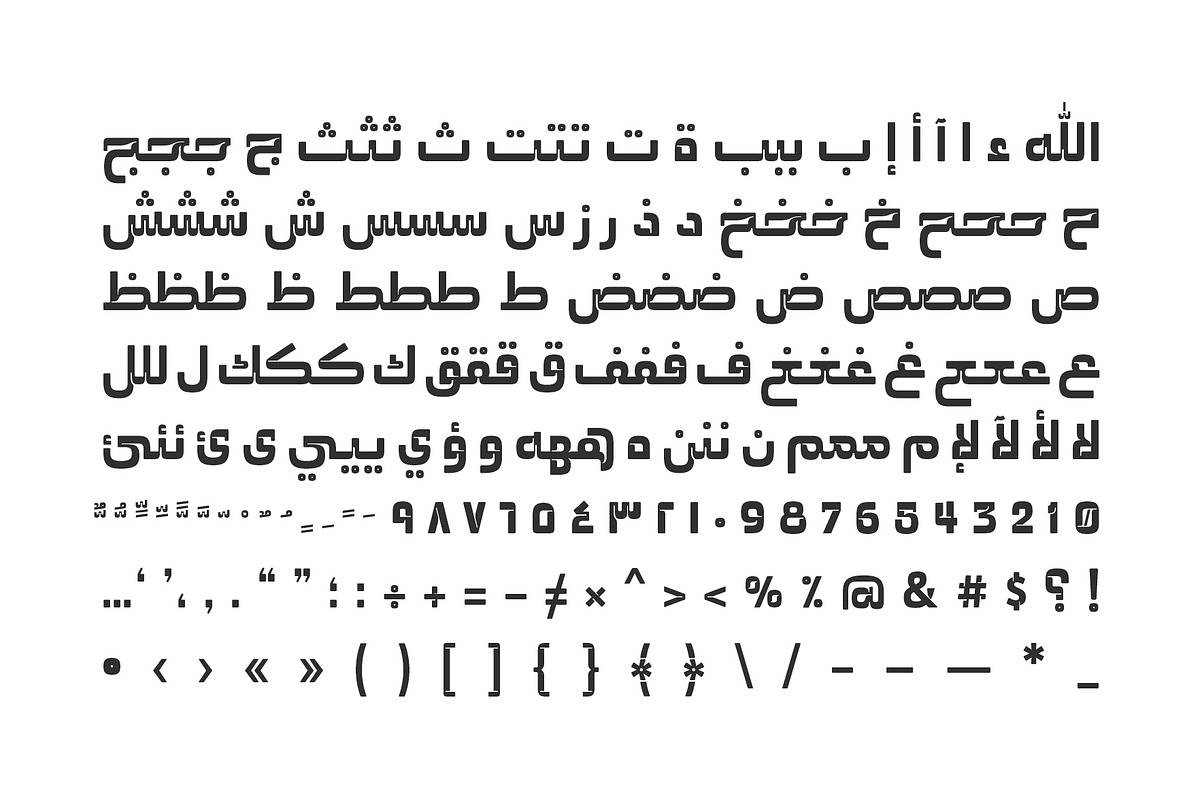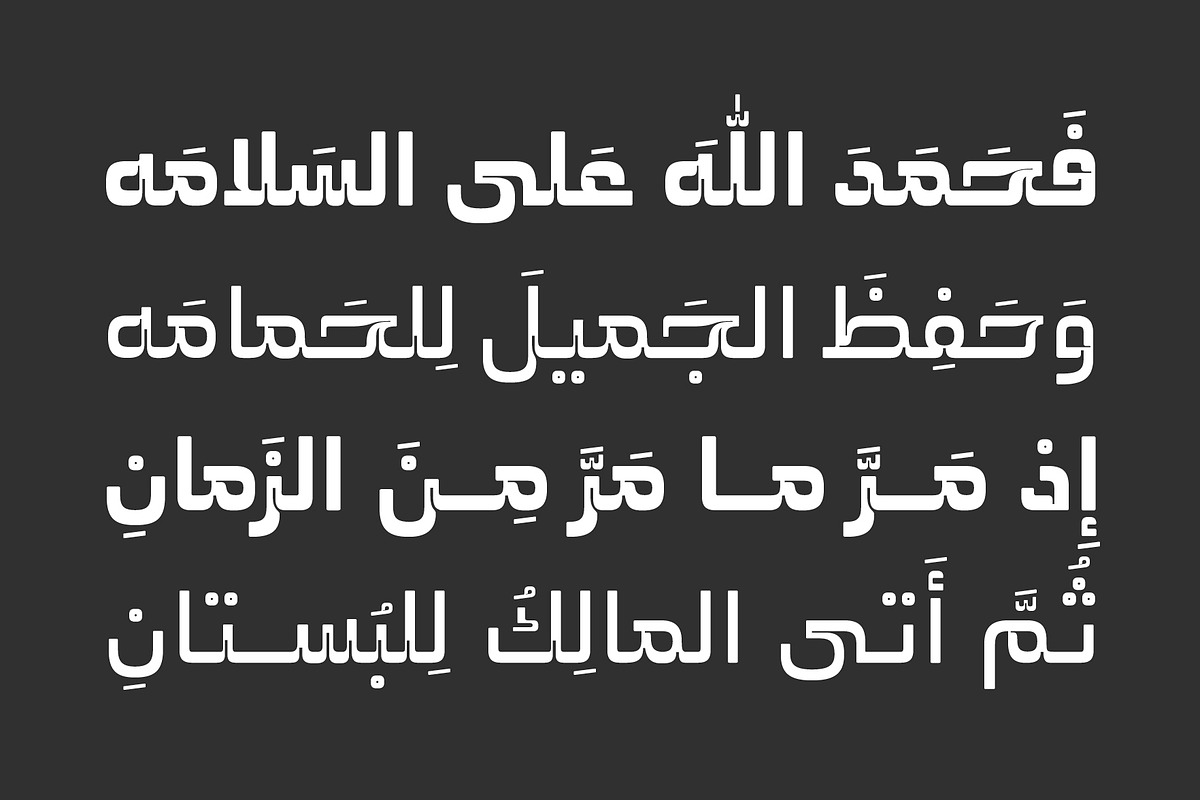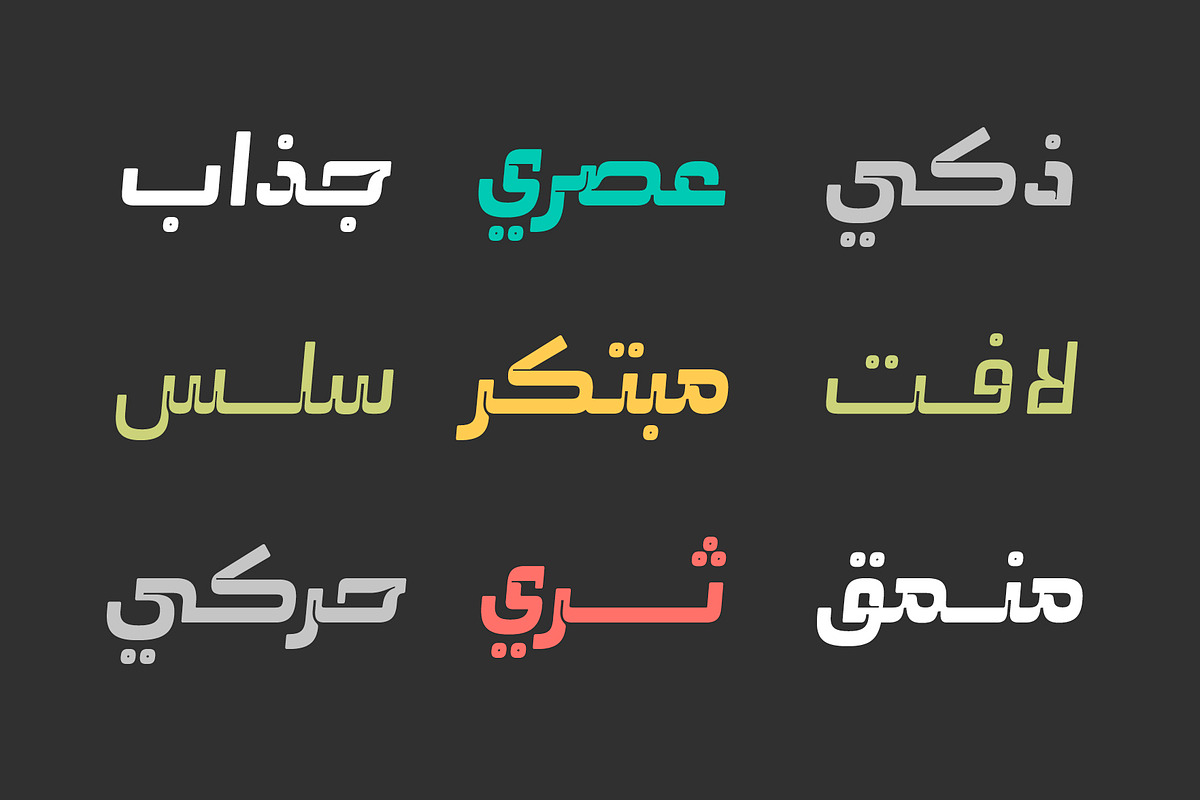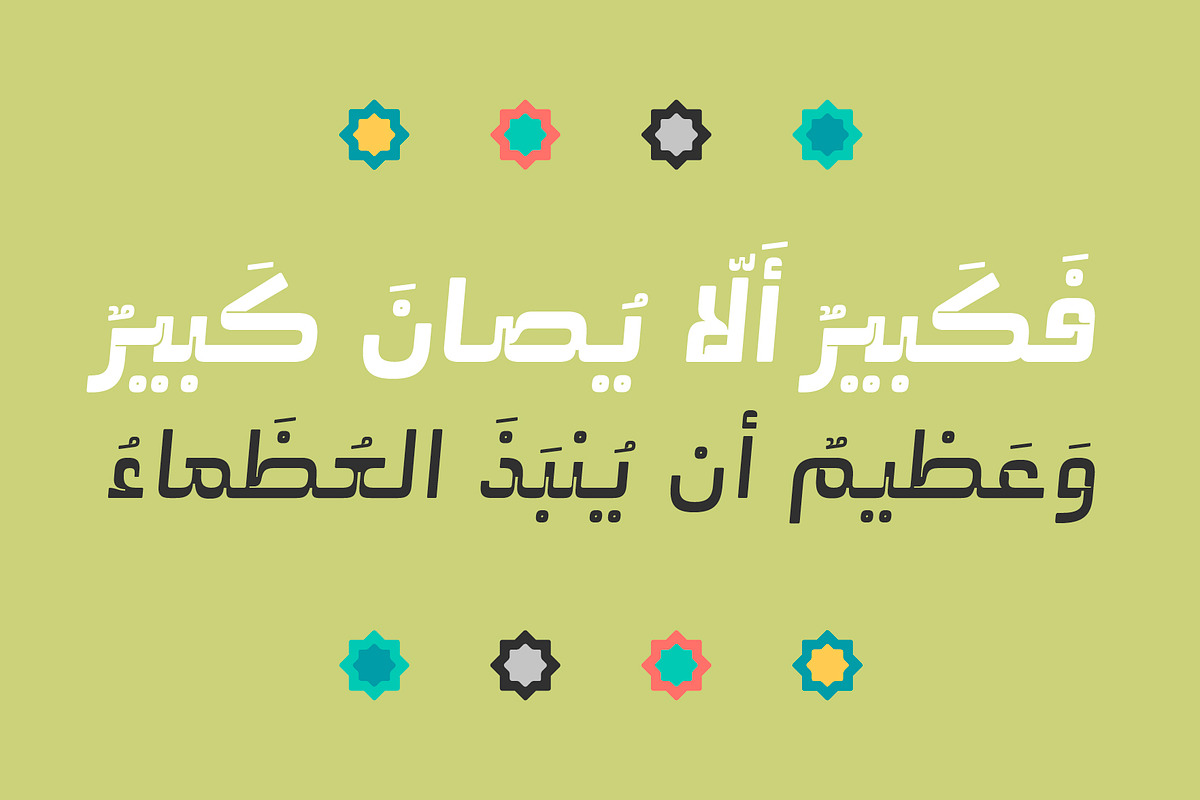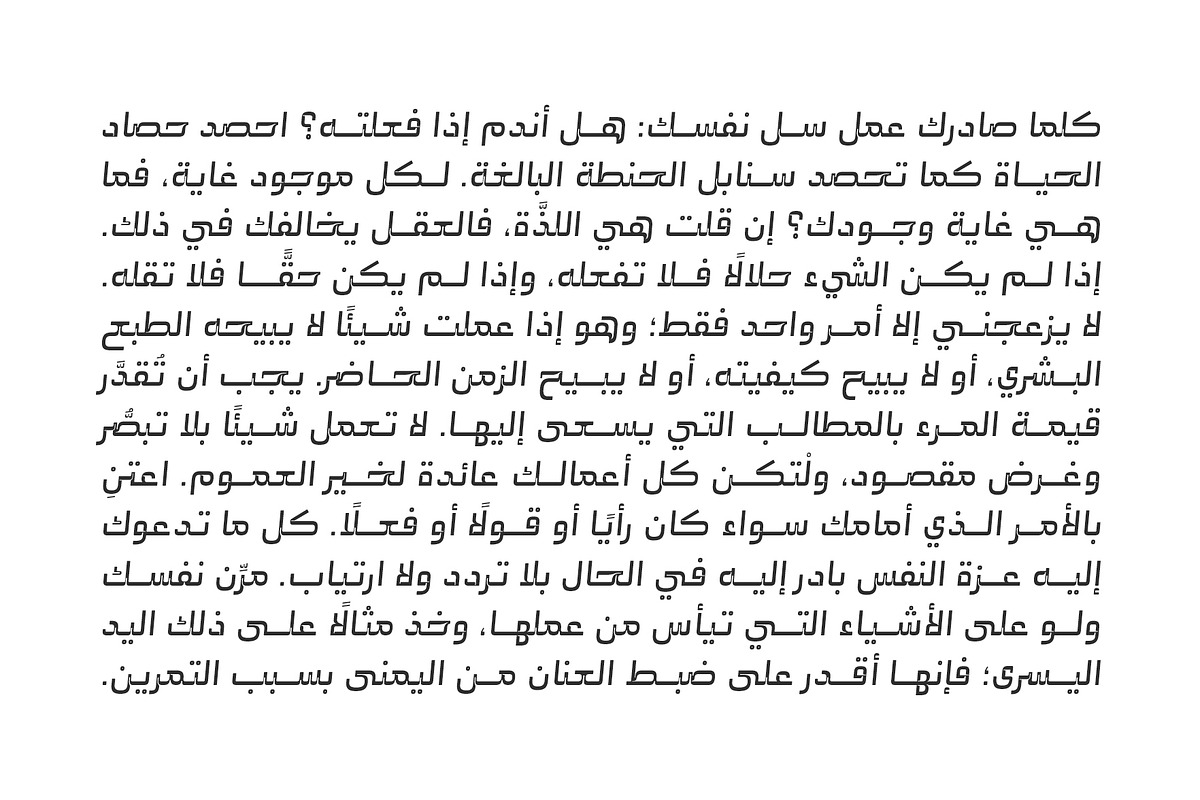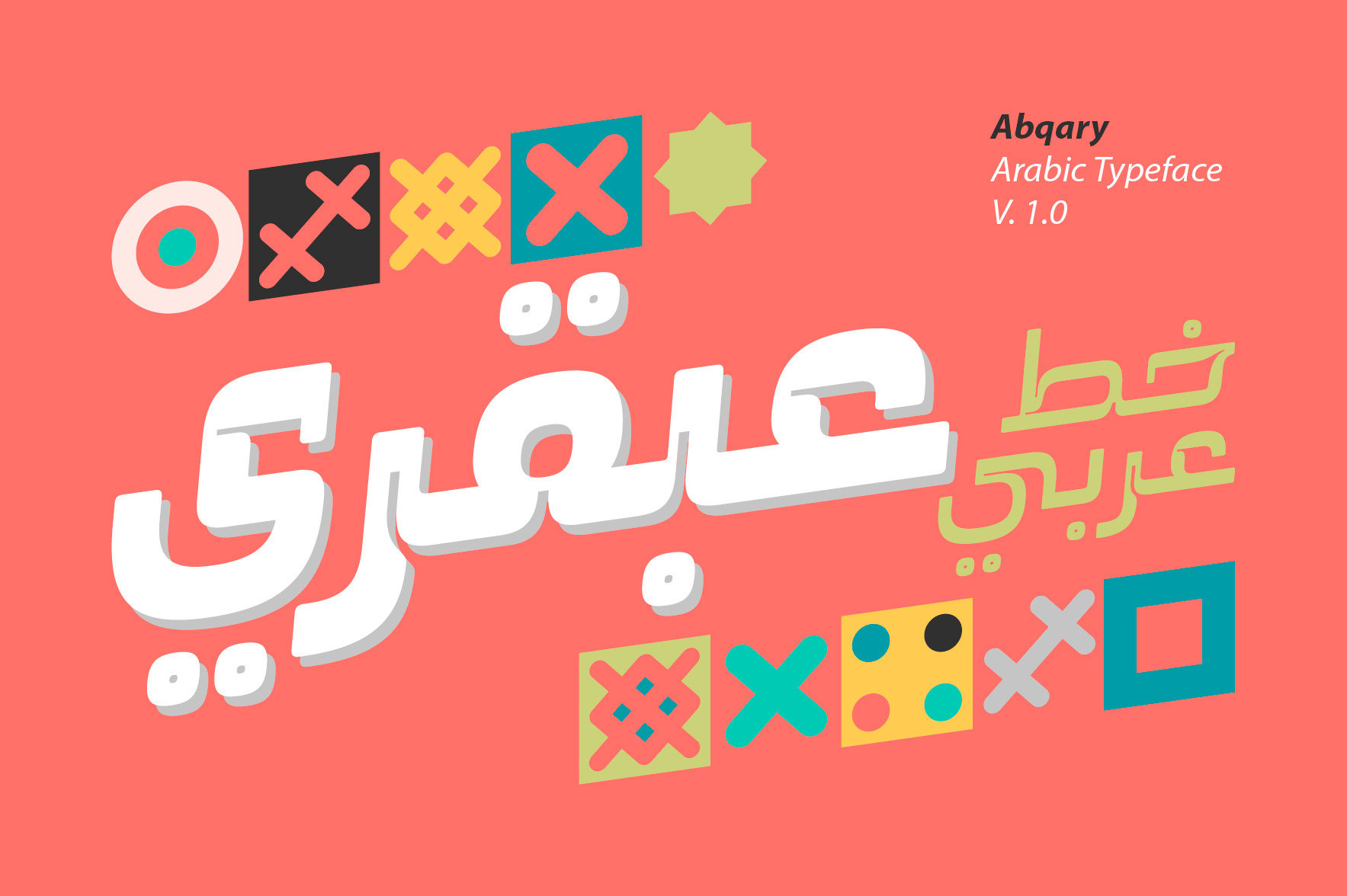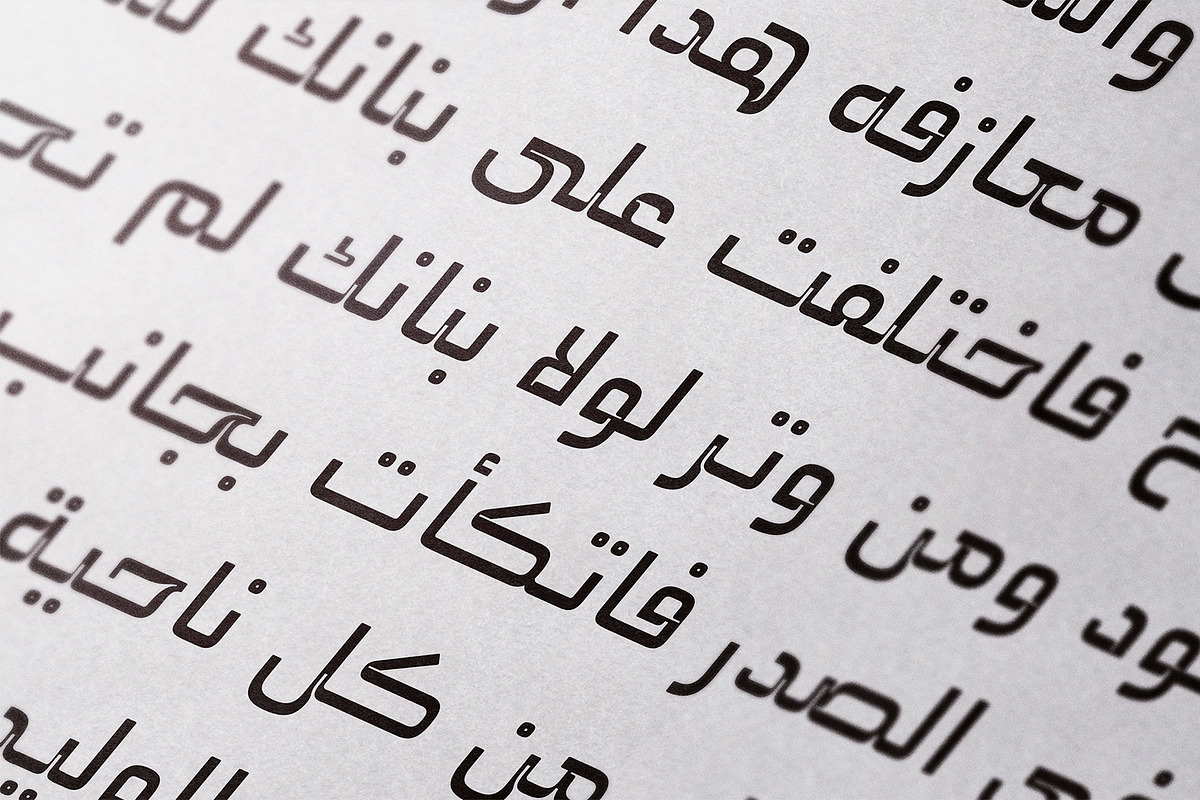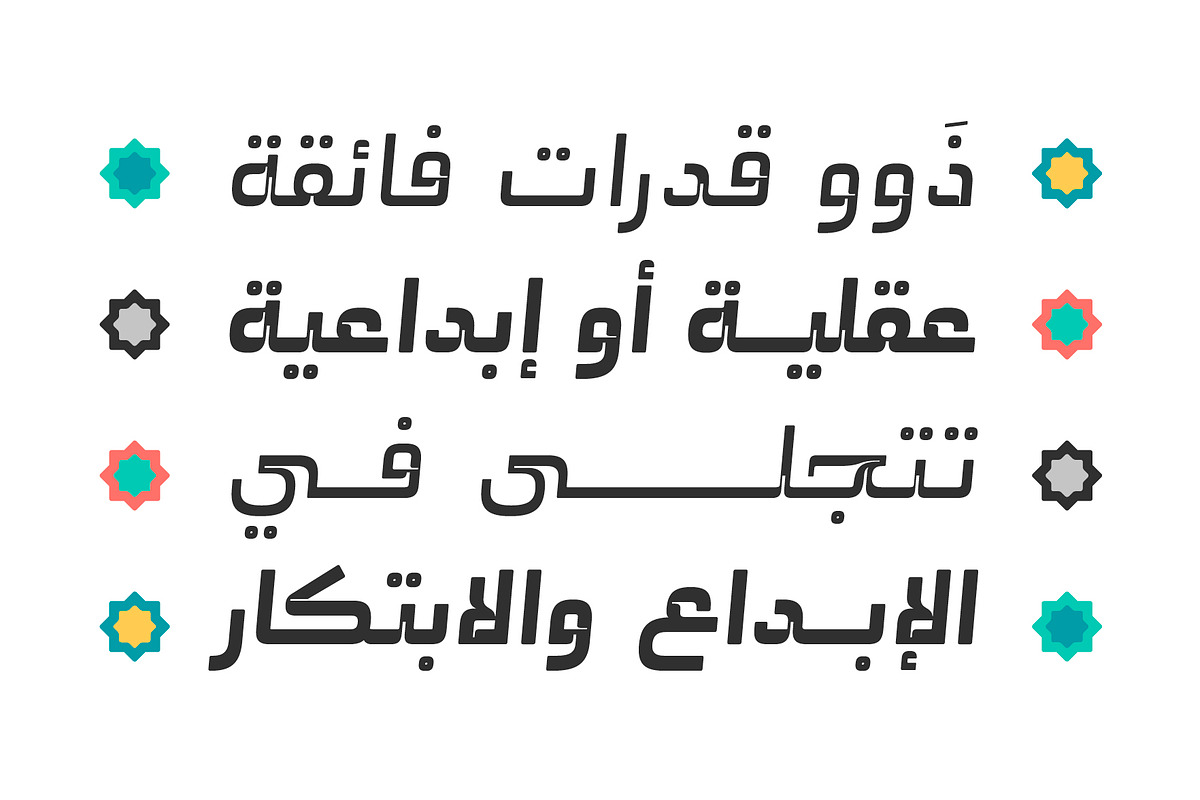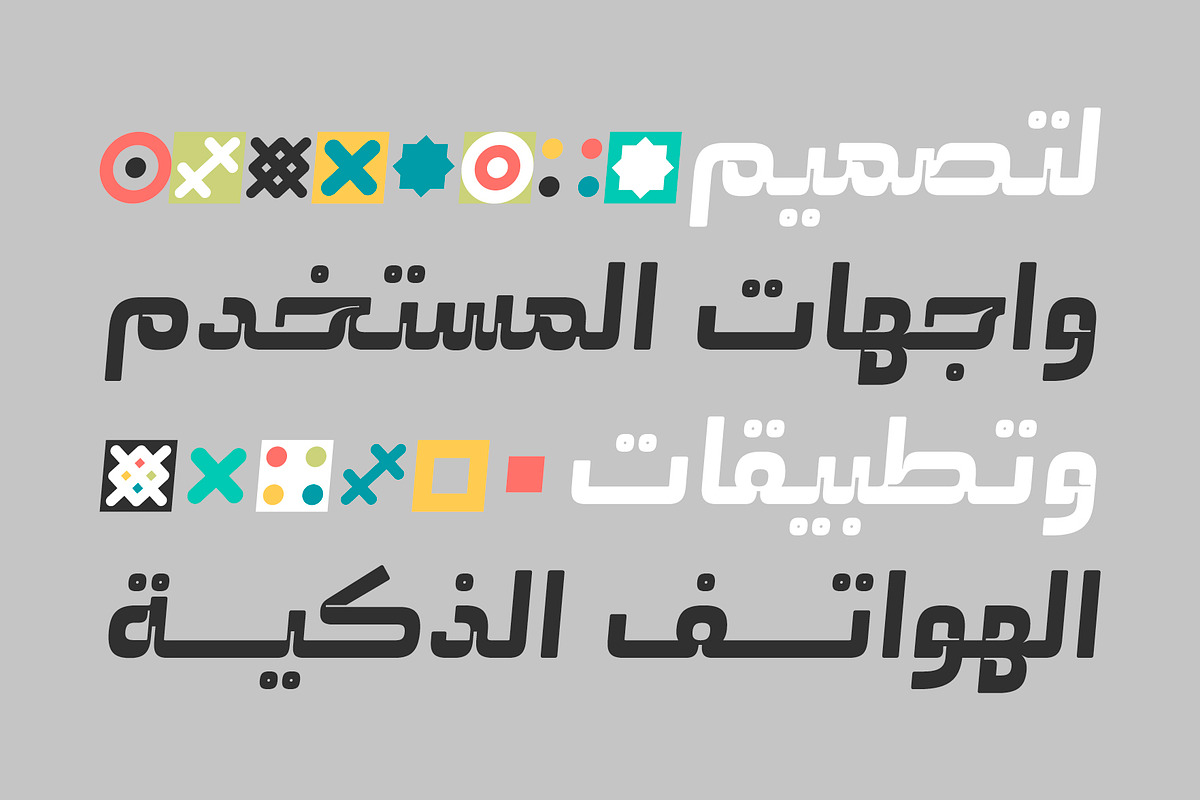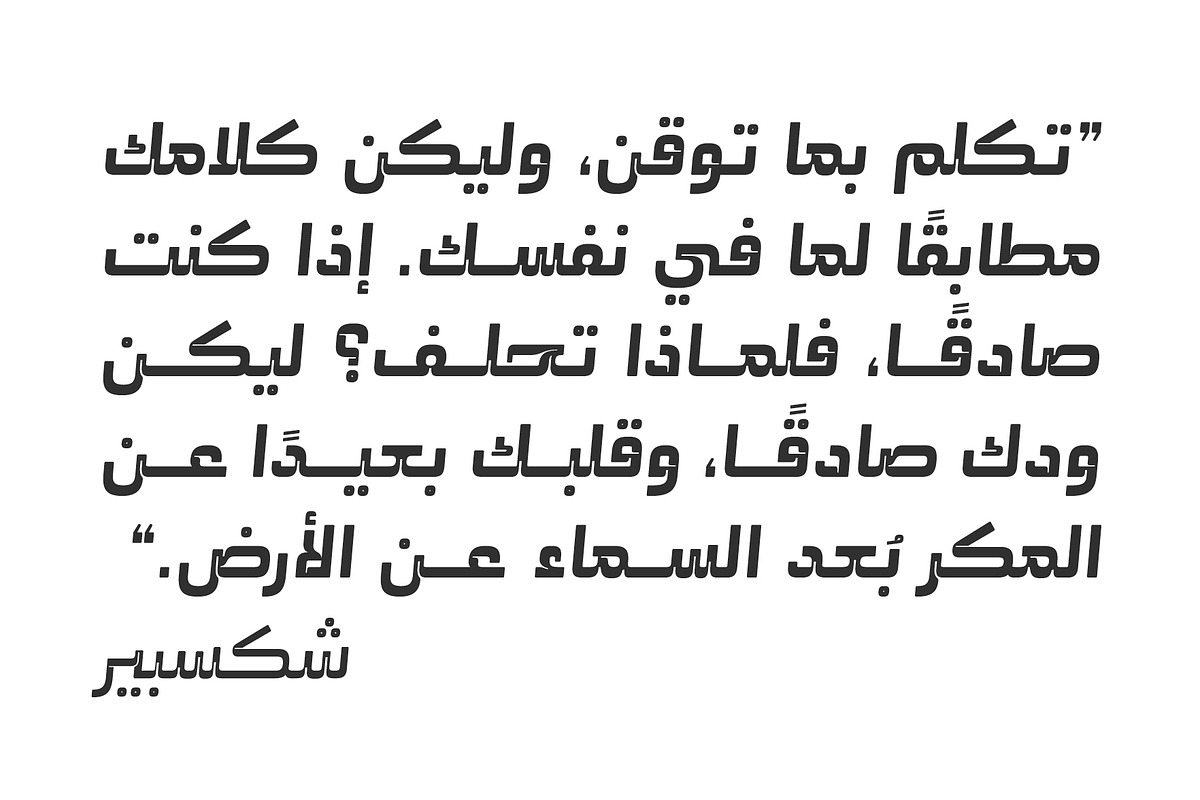
Abqary - Arabic Typeface
Abqary (the Arabic word for 'Genius') is an Arabic display font that features dynamic letterform design infused with a modern artistic flair. The font's smooth edges contribute to a sleek appearance while ensuring high readability. Abqary suits a wide array of creative projects such as print media, branding, UI/UX typography, as well as web and mobile applications. The font family consists of Regular and Bold styles and is compatible with both Windows and macOS.